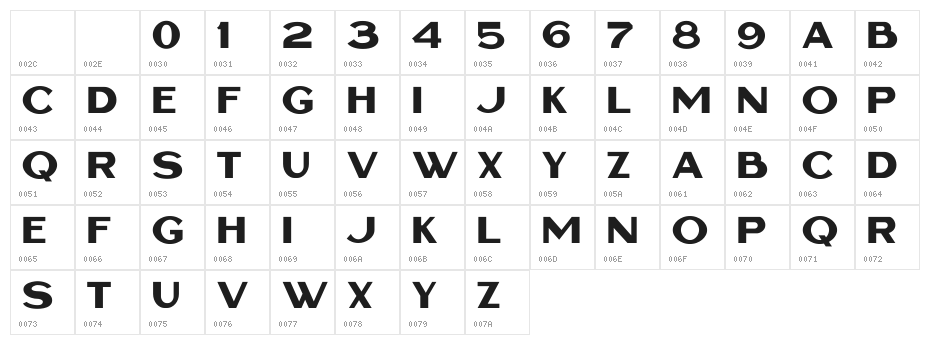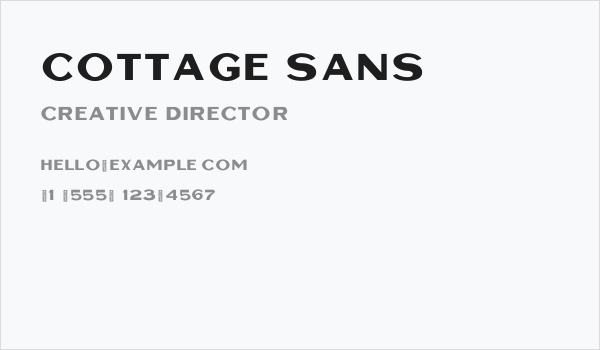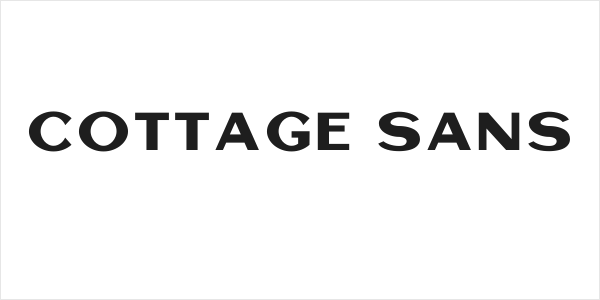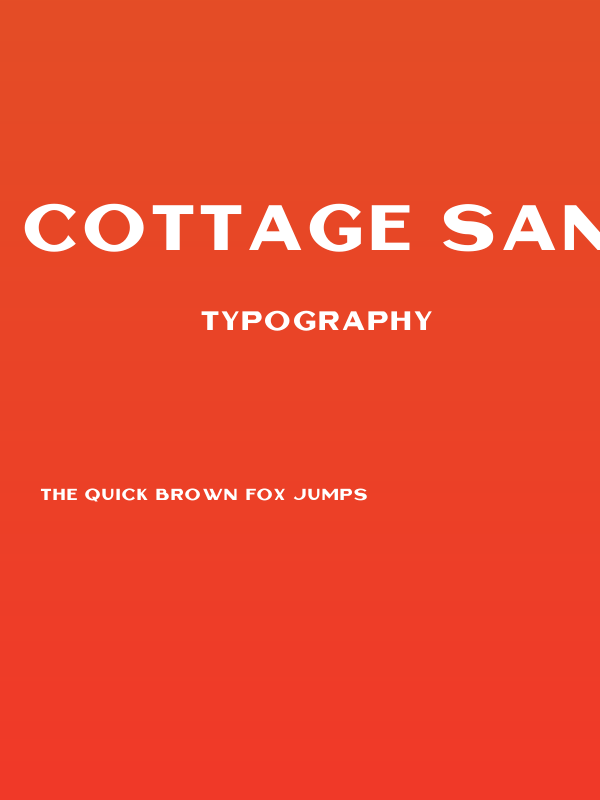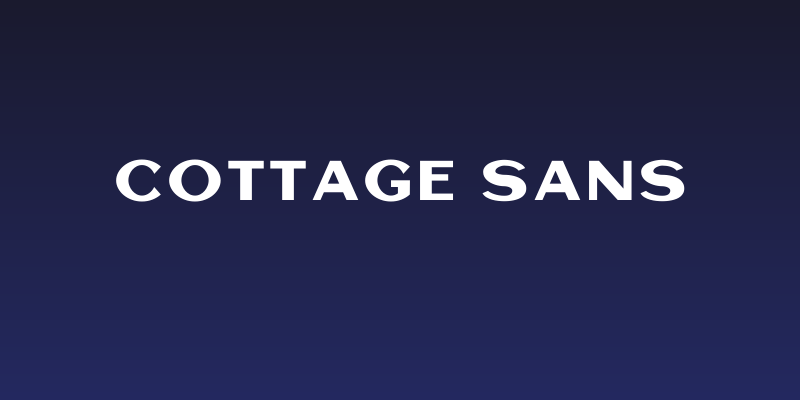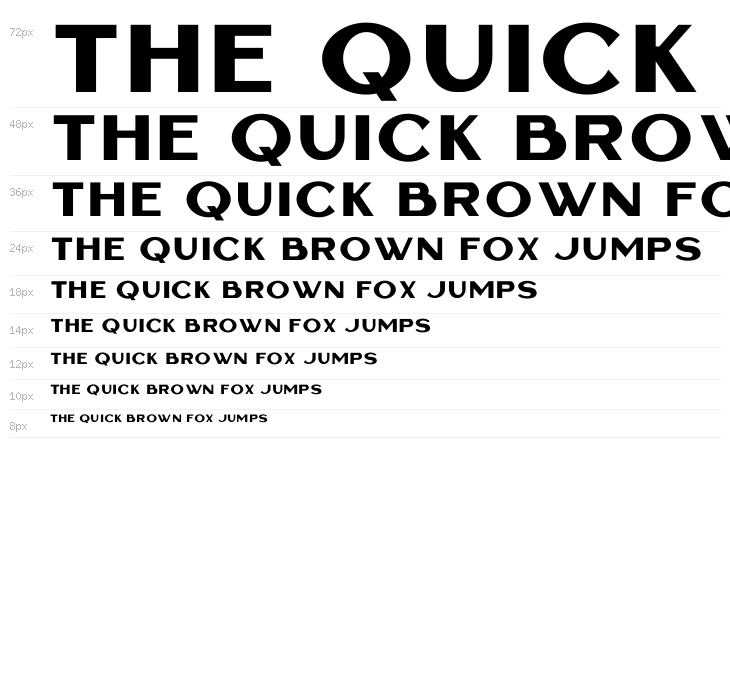
Cottage Sans Font
Cottage Sans Description
This font features a bold and clean sans-serif style, characterized by its strong geometric shapes and uniform stroke widths. The uppercase and lowercase letters are crafted with precision, offering a modern and professional appearance. The numerals are equally bold, ensuring clarity and readability. The overall design is straightforward, making it versatile for various applications. The characters are evenly spaced, providing a balanced and harmonious look. This font is ideal for projects that require a contemporary and assertive typeface.
| Proposed Projects | Ideal for branding, advertising, headlines, and digital content where a strong, modern presence is desired. |